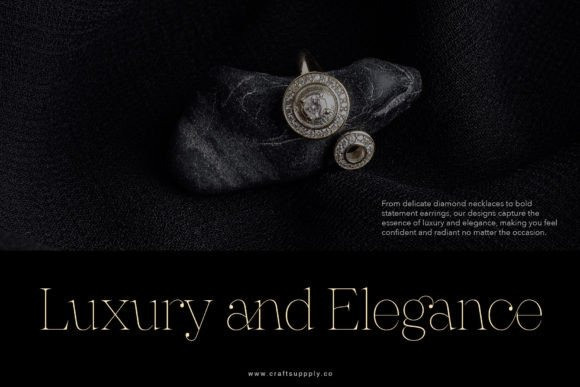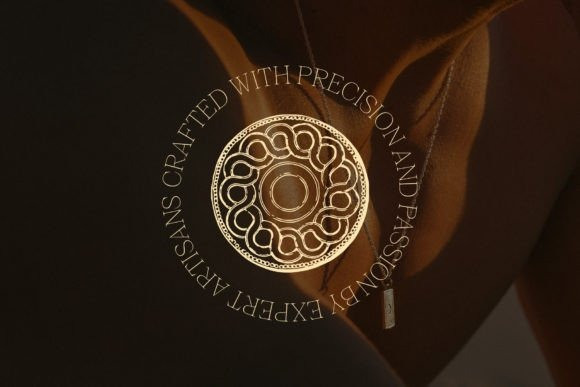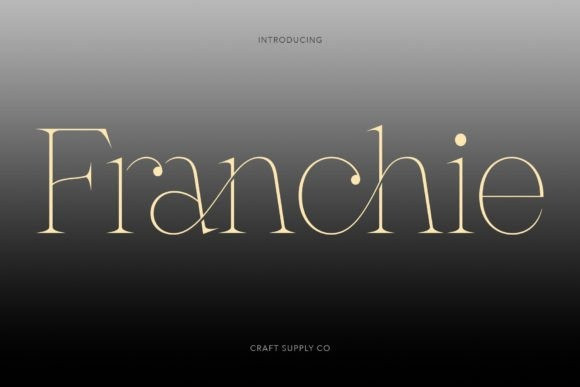
Franchie Font
Franchie Font is a modern elegant font featuring a clean and minimalist design with thin strokes and unique shapes, incorporating geometric elements for symmetry and balance. This font is ideal for modern branding and advertising, exuding refinement and sophistication.